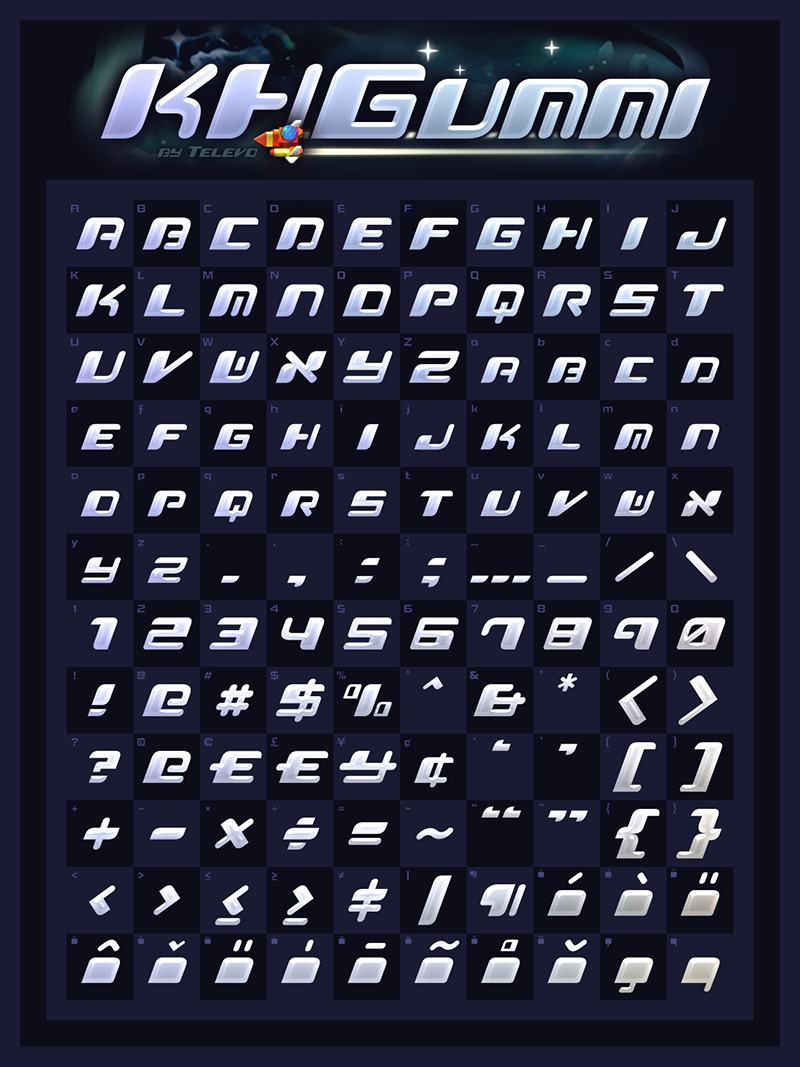
This font is part of Kingdom Hearts Re:Collection; a free archive of art assets and custom fonts created by Televo: https://github.com/Televo/kingdom-hearts-recollection In comparison to similar fonts found online, the characters in Re:Collection have been accurately recreated directly from the games where possible and have vastly improved spacing/kerning (especially when setting spacing to metric). Numerous languages are supported including English, French, German, Italian, Spanish, Turkish, Polish, Norwegian, Swedish, Russian, Portuguese, Danish, Indonesian and many more latin-based languages. Note that while KHScala contains all known symbols, the font will contain translation inaccuracies becuase the Scalan language has not been fully deciphered. If you decide to use these fonts publicly, giving credit is much appreciated though not necessary. Please feel free to message me anytime on Discord at Televo#9400 as I love to see how my efforts here have helped you create something awesome. If you appreciate what I do with all your heart, consider supporting me on KoFi: https://ko-fi.com/televo. Of those few who have already done so, I am tremendously thankful, regardeless of the amount. Included: KHMenu - Start Menu Font KHGummi - Gummiship Font KHTitle - Title Logo Font KHScala - Scala ad Caelum Font KHData - Datascape Font Not Included (Other KH Fonts): DFPW5_EUR - Start Menu Font KH2_ALL_MENU_I - Gummiship Font Kingdom Hearts Font - Title Logo Font Comic Hearts - Cutscene Subtitle Font More... |